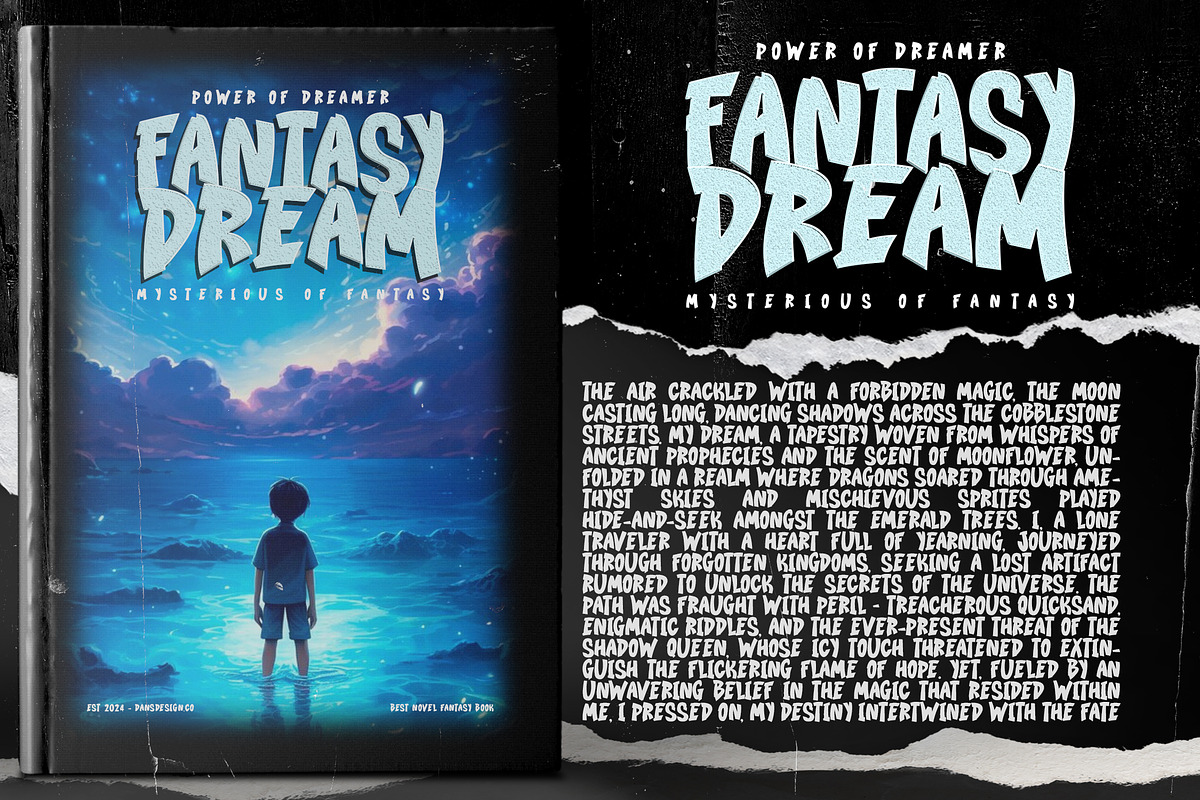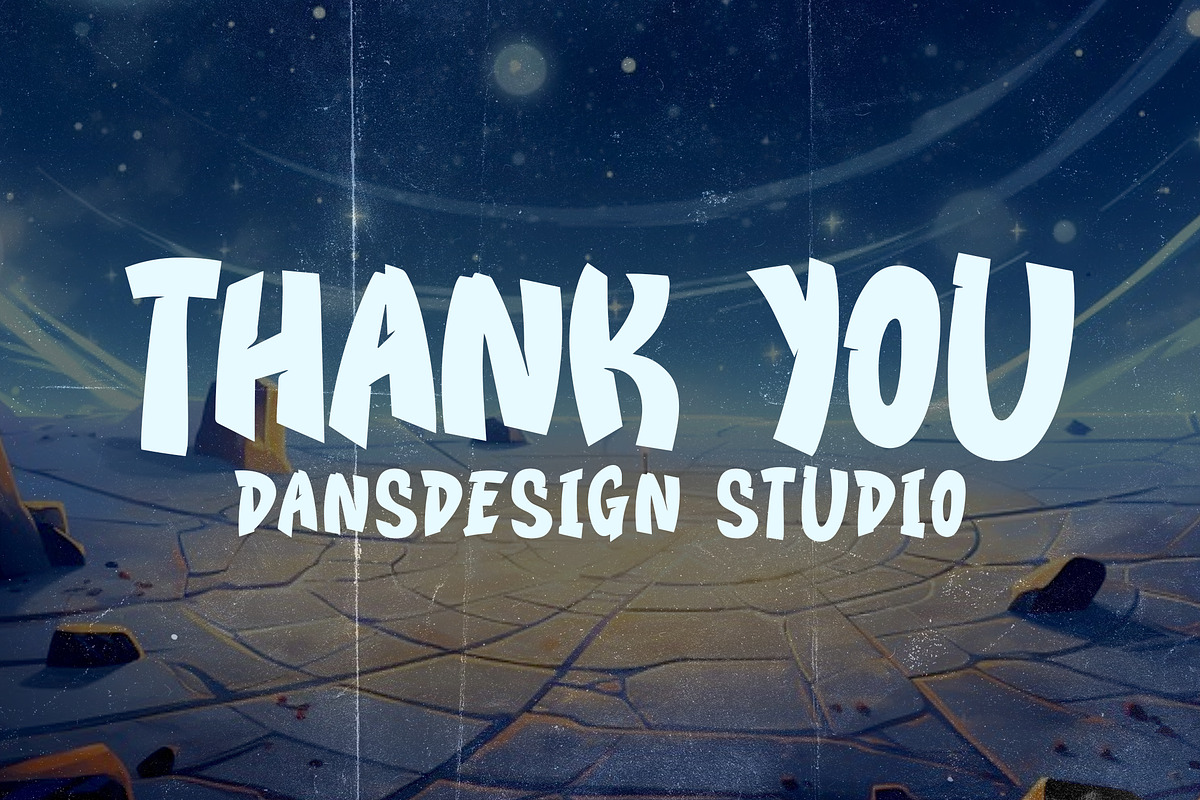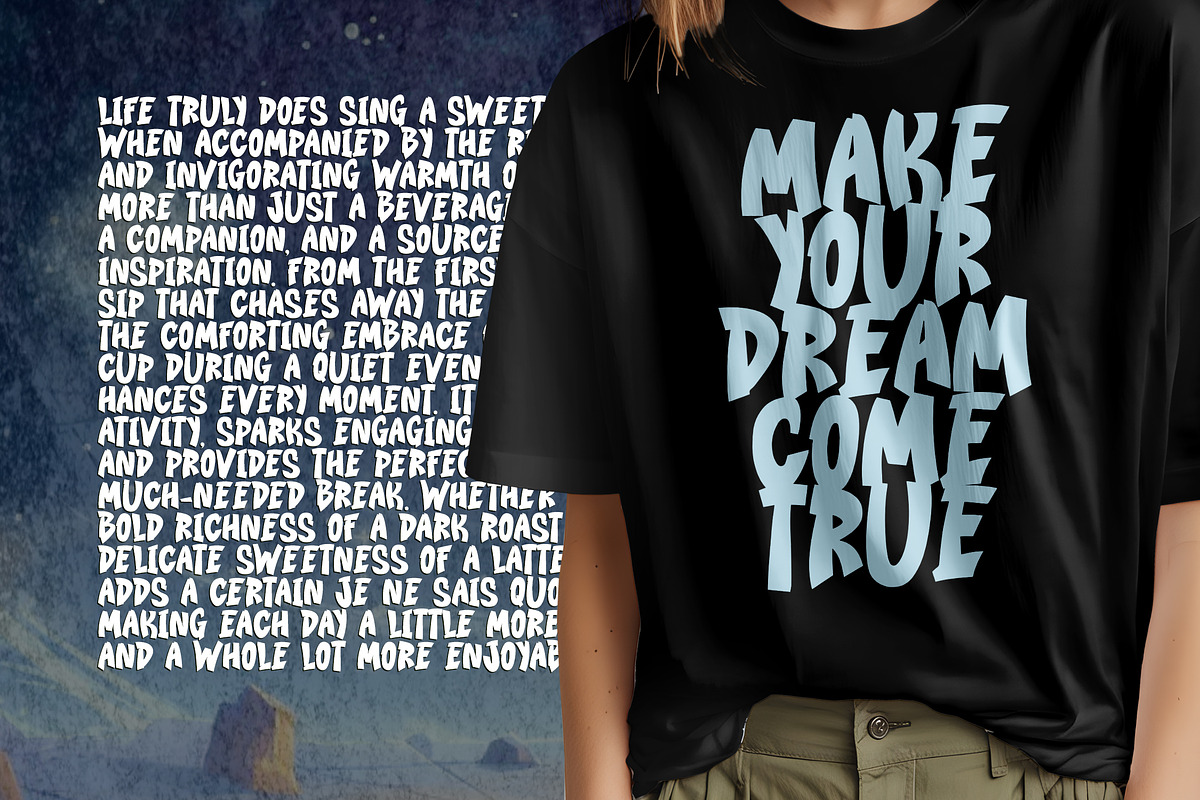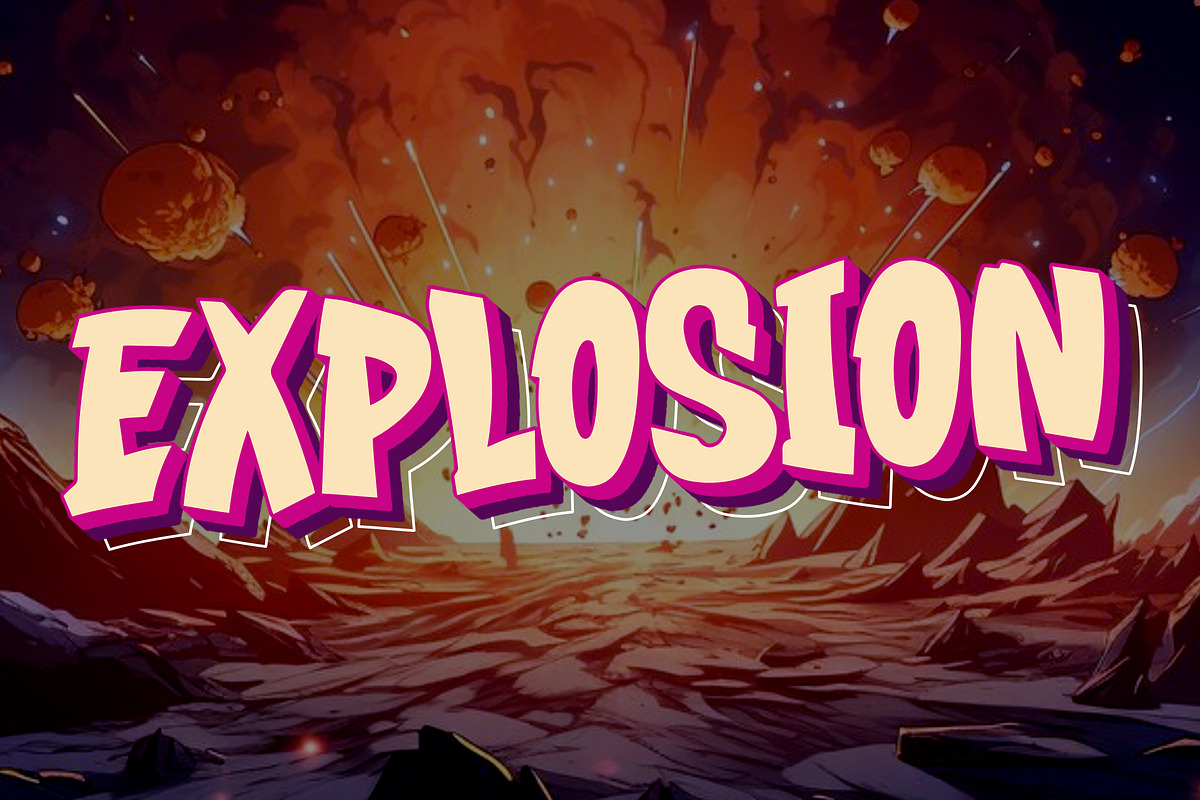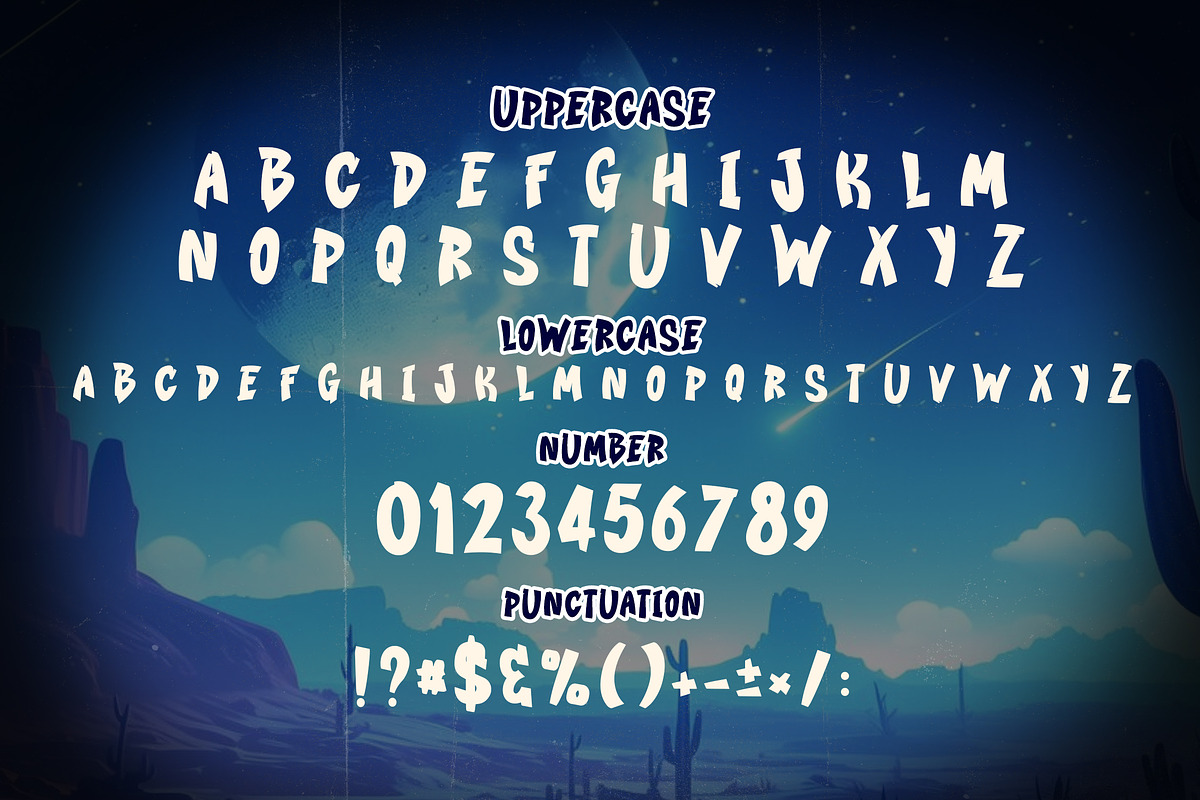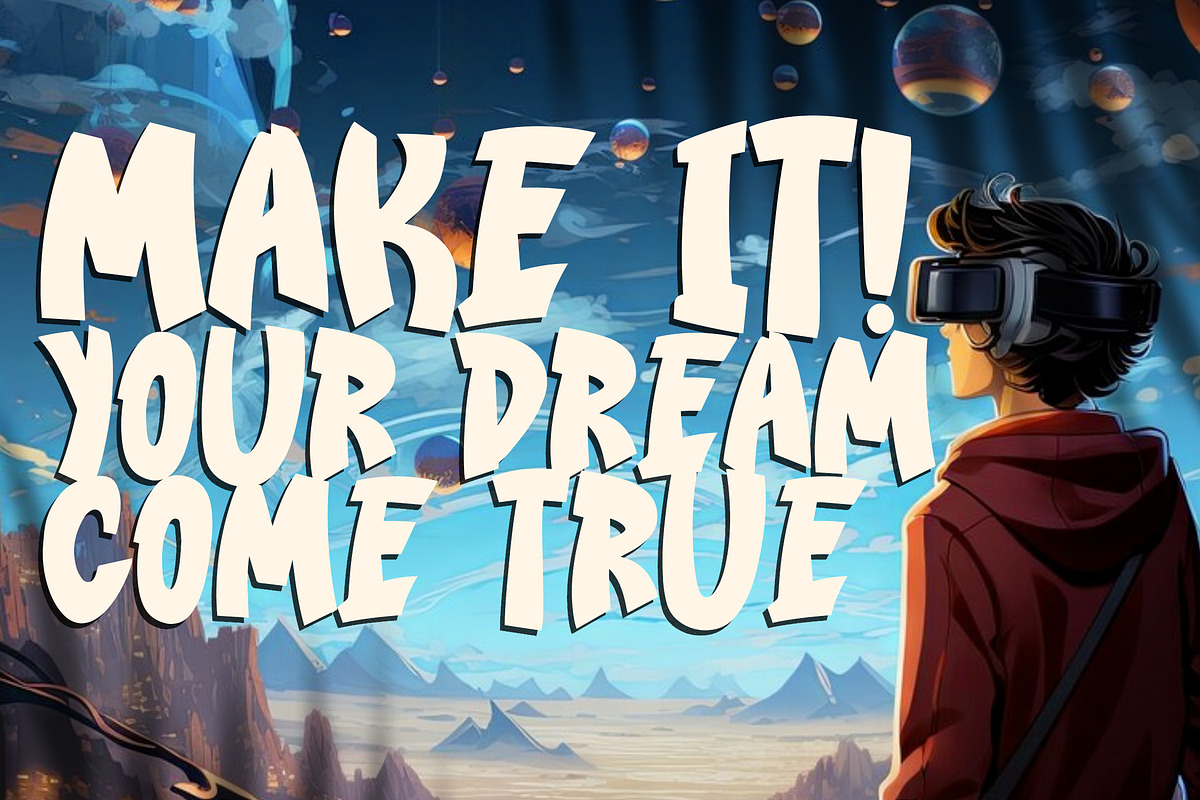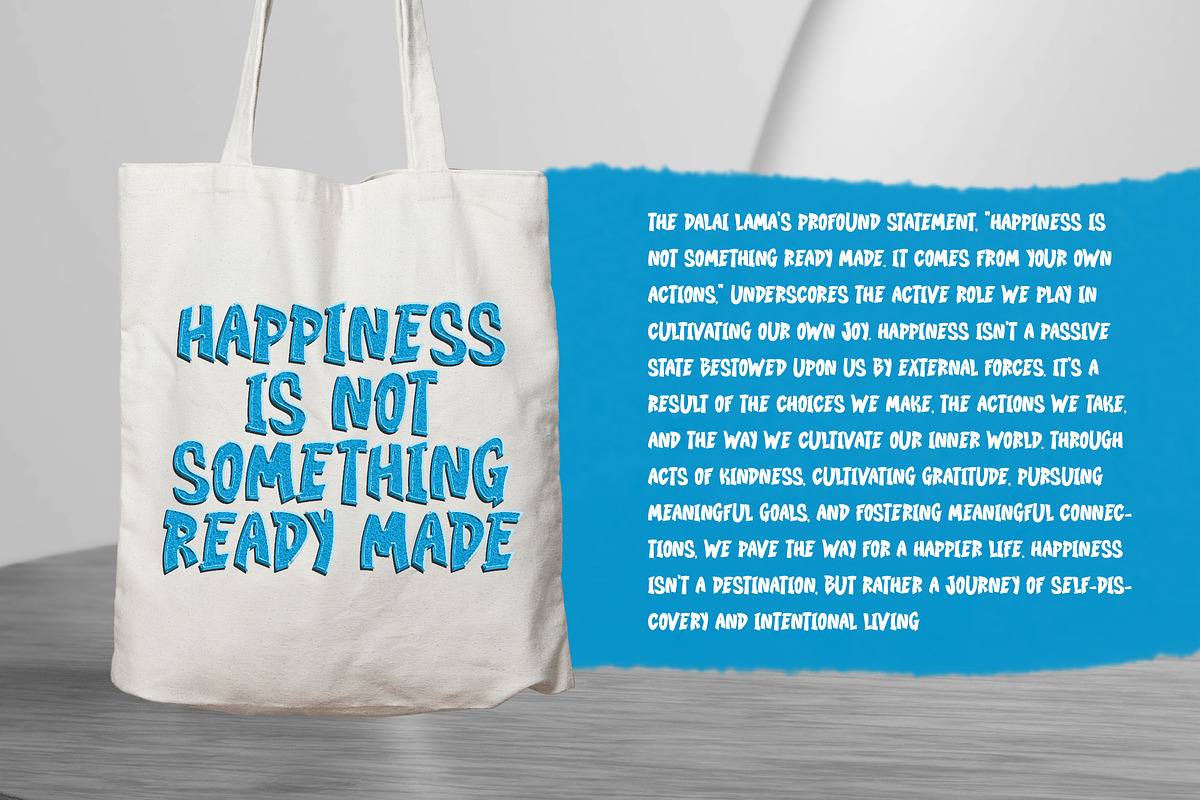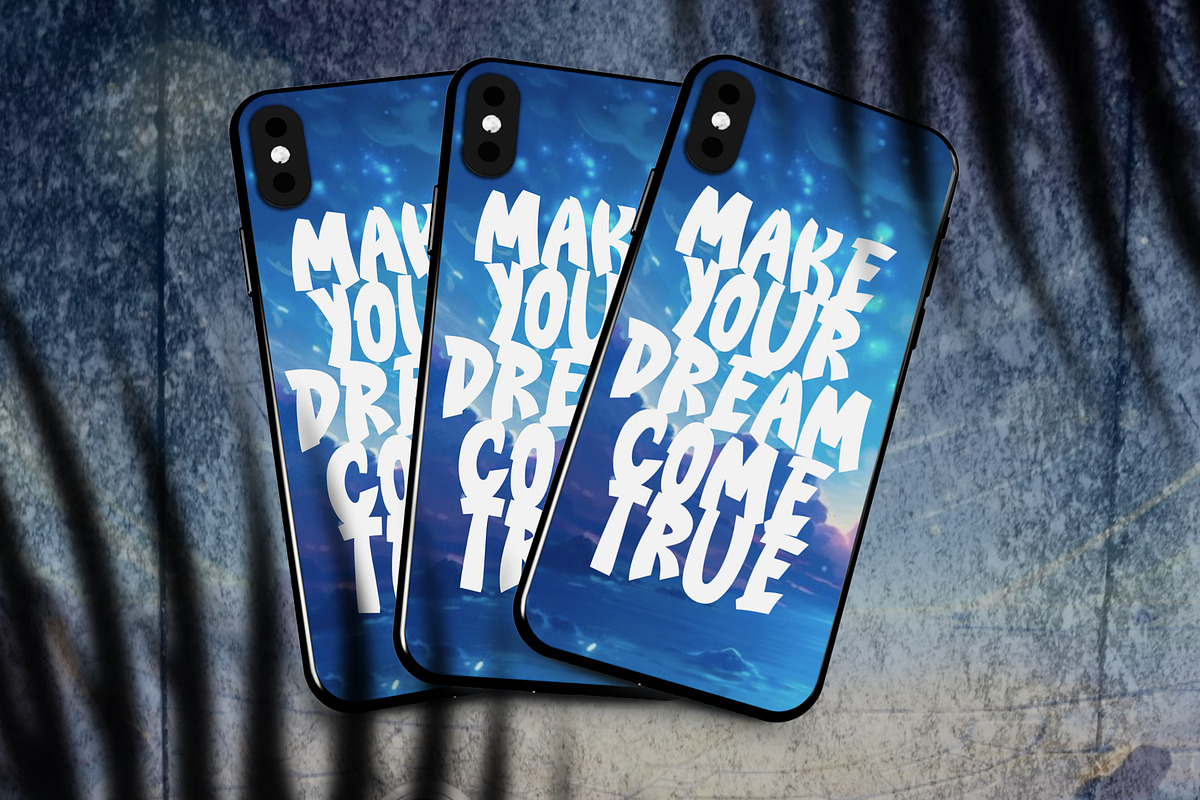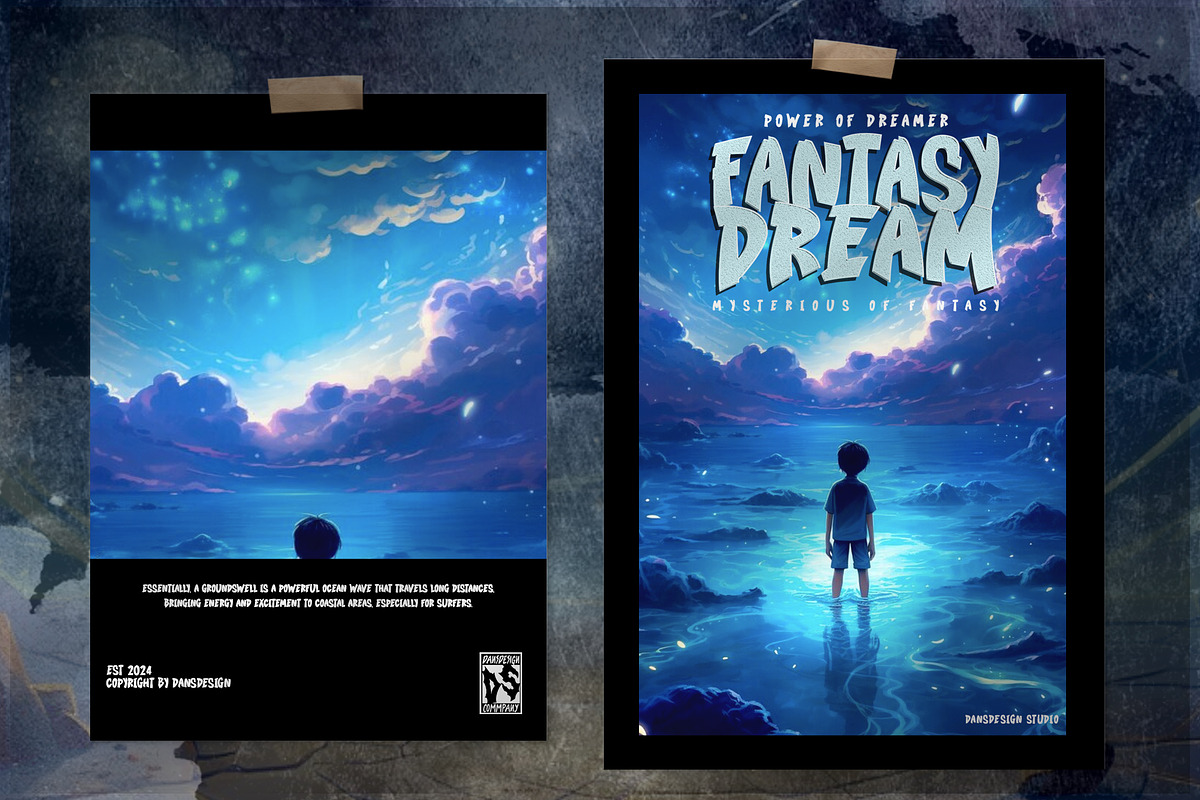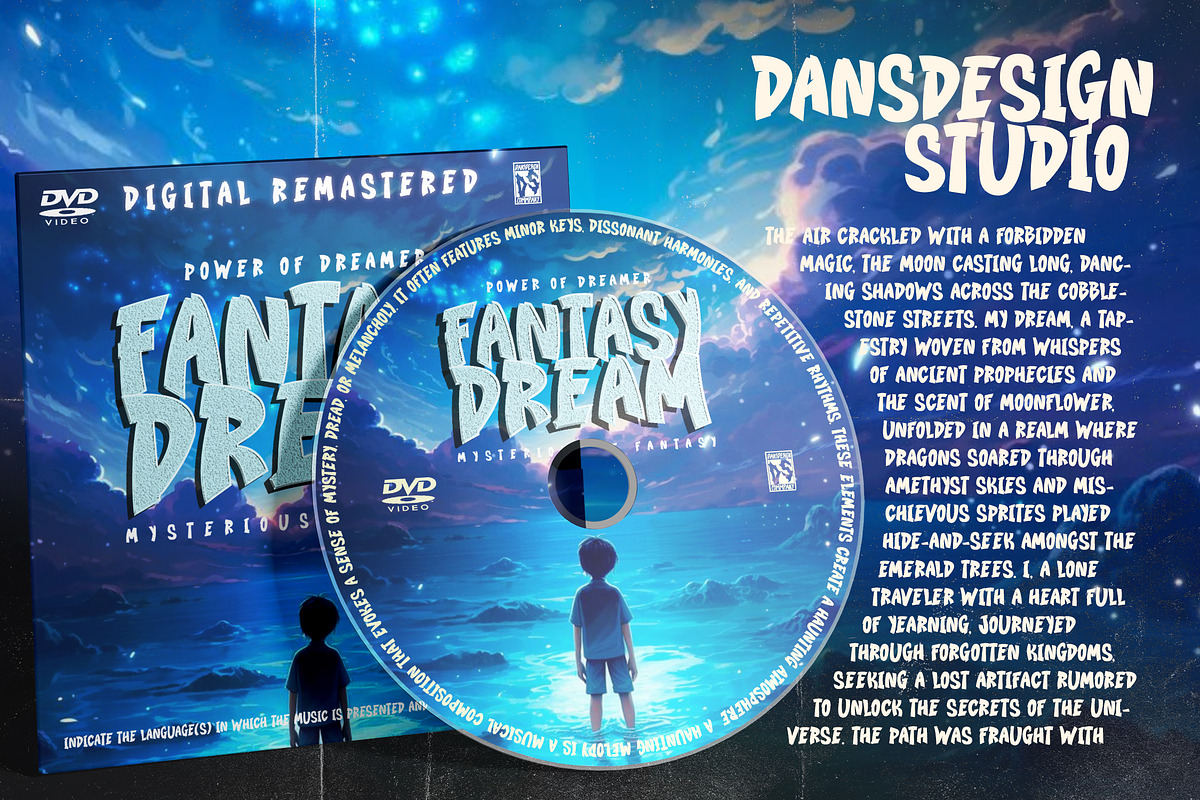
Arcade Power Marker Playful Comic
Arcade Power Marker Playful Comic Display Font is a distinct, highly detailed. Marker Display Font. It would make a great choice for exquisite retro-urban designs, business branding, logos, and more.